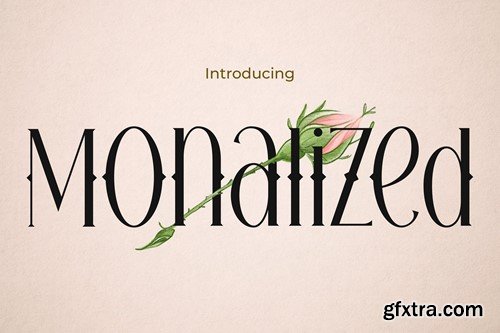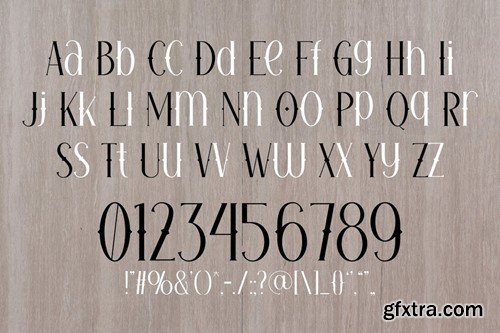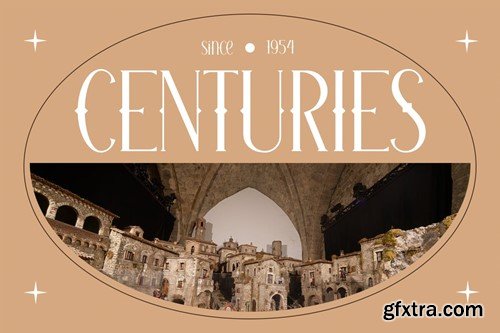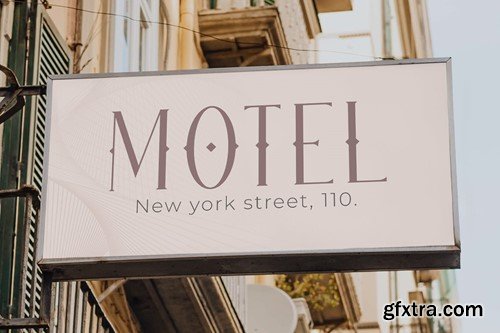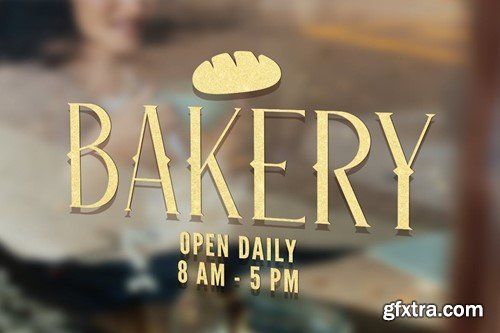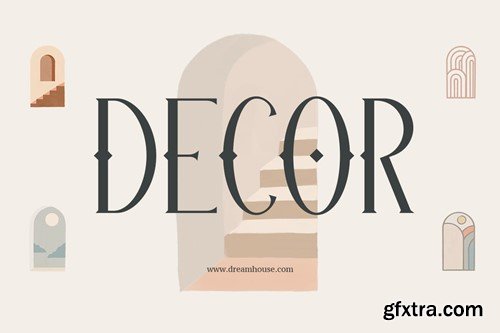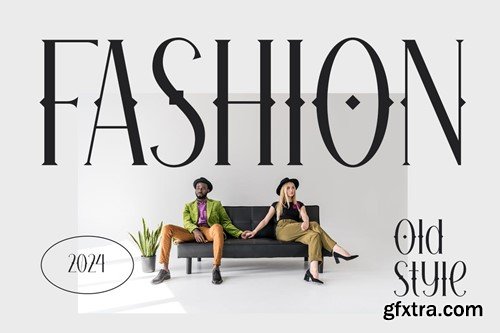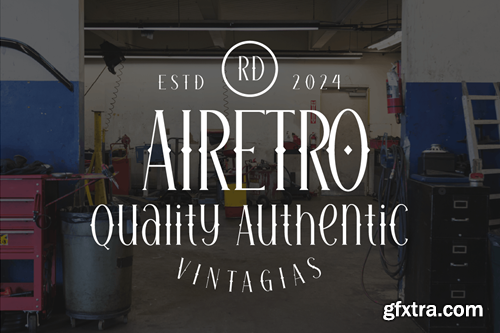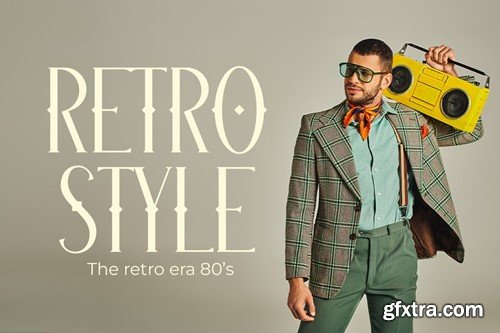
Monalized - 现代西方字体 WPT8ST6
Monalized is a modern serif font that skillfully blends elements of Western flair and retro fashion, making it a standout choice for various design needs. This font offers a sophisticated yet bold look perfect for creating impactful logos, enhancing quotes with a touch of class, and crafting invitations that set a tone of elegance. Its unique style also makes it highly effective for posters and greetings that aim to capture attention while conveying warmth. Whether used in packaging, branding, or covers, Monalized ensures each design is memorable and stylish. Additionally, its versatility extends to event promotions, headlines, and advertising, where its fusion of modern and retro elements can shine, making every message both contemporary and timeless.